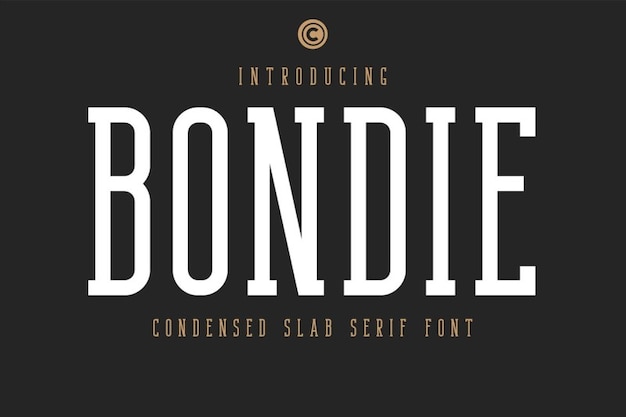
Bondie Slab Font
This font is all about clean lines and a no-nonsense attitude, making it the go-to choice for designs that demand clarity and a contemporary edge. Whether you're creating business documents or eye-catching posters, Bondie Slab's straightforward style ensures your message gets across with a touch of modern sophistication. Embrace the power of simplicity with Bondie Slab and let your content shine effortlessly.